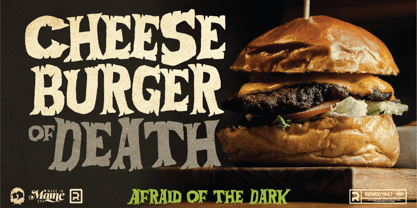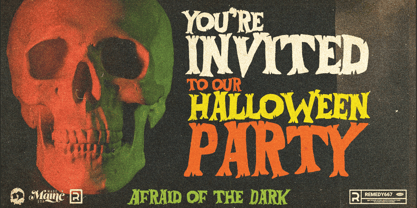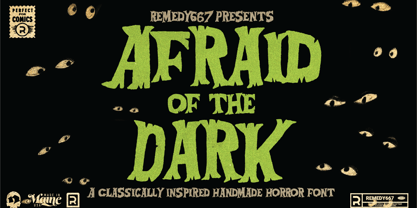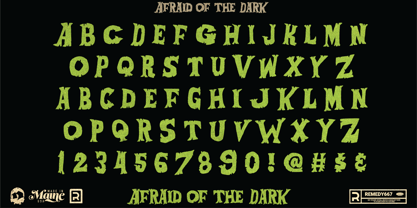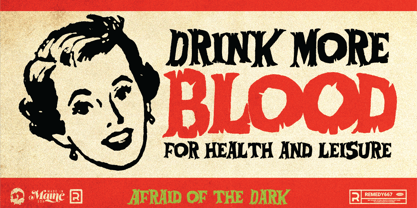
Afraid Of The Dark
by Remedy667
The Afraid Of The Dark Font Family was designed by Nick Polifroni and published by Remedy667. Afraid Of The Dark contains 1 styles. More about this family
Afraid of the Dark evokes feelings of classic horror camp from the glory days of William Castle and Vincent Price. Inspired by vintage 70’s horror film posters, and title cards… it’s an instant classic, perfect for a multitude of projects including headlines, t-shirts, album covers, games, and more… bring your packaging projects to life, or are you Afraid… of the Dark?
Designers: Nick Polifroni
Foundry: Remedy667